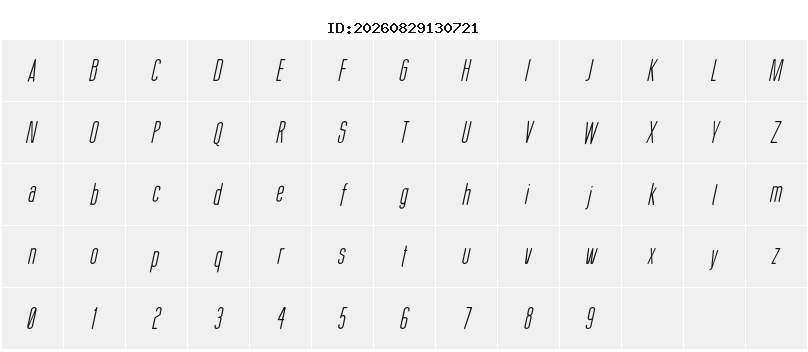
Thin Cool Preview
• Font Name: Thin Cool
• Font Style: Italique
• Font ID: Thin Cool Italic:Version 1.00
• Full Font Name: Thin Cool Italic
• Version: Version 1.00 April 12, 2015, initial release
• PostScript Name: ThinCool-Italic
• Designer: Typeface © Galdino Otten. 2015. All Rights Reserved
• Manufacturer: Galdino Otten
About Thin Cool.ttf
Thin Cool.ttf is a modern, elegant sans-serif font designed for ultimate readability and visual harmony. Perfect for branding, headlines, web design, and print materials.